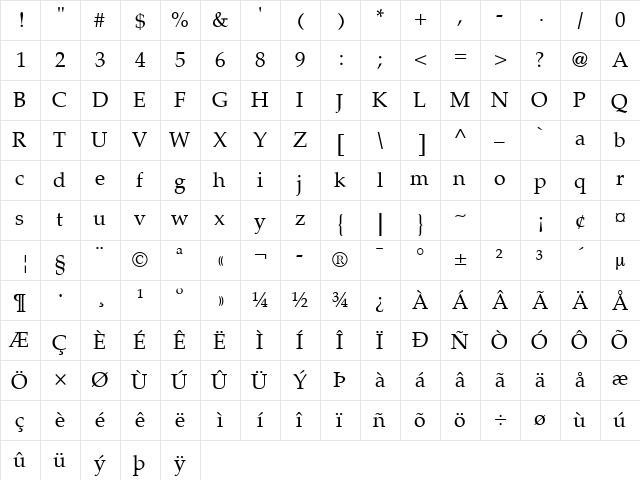
Nazanin LT Light
| Foundry | Linotype GmbH |
| Designer | Mr. Haghighi |
Design Context for Nazanin LT Typeface
Nazanin LT takes a measured approach to typography — its balanced proportions and neutral character make it a reliable workhorse for both digital and print work. The delicate stroke weight brings airiness and refinement to layouts.